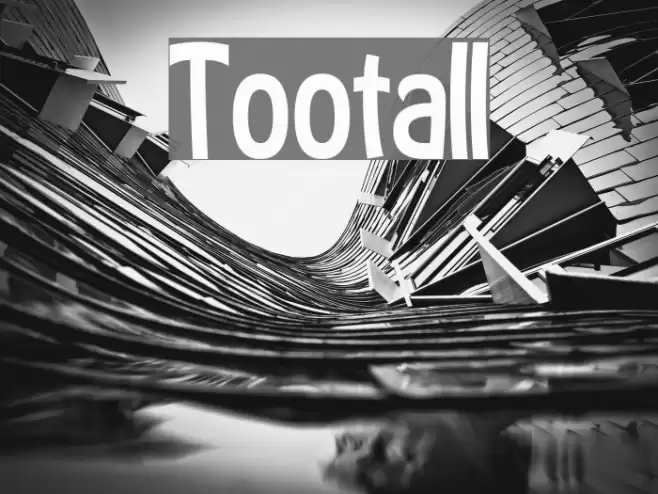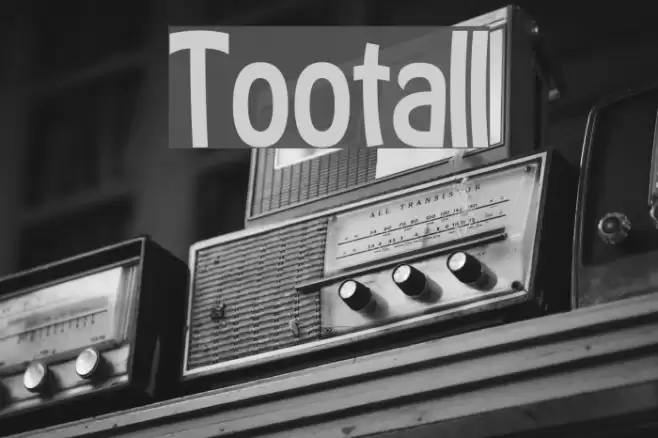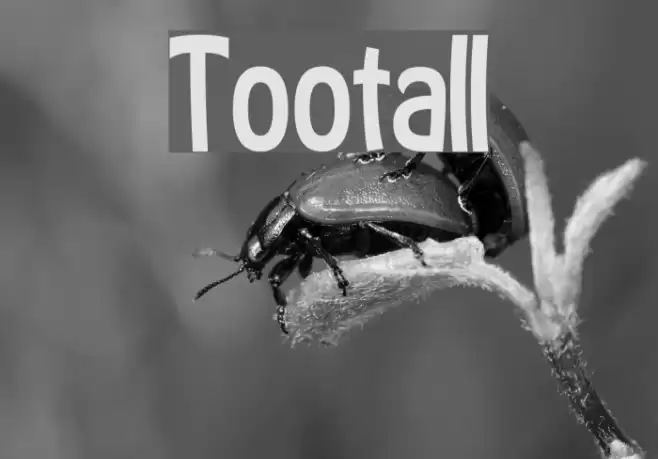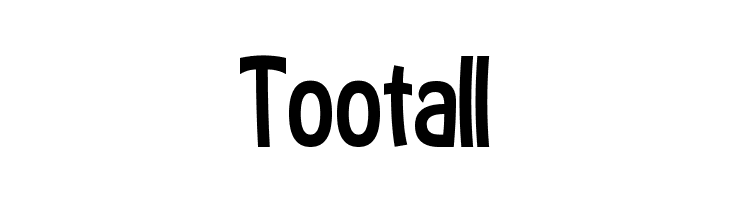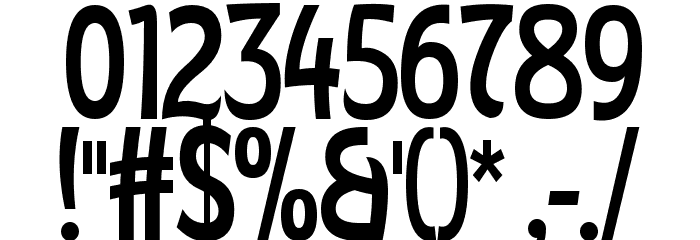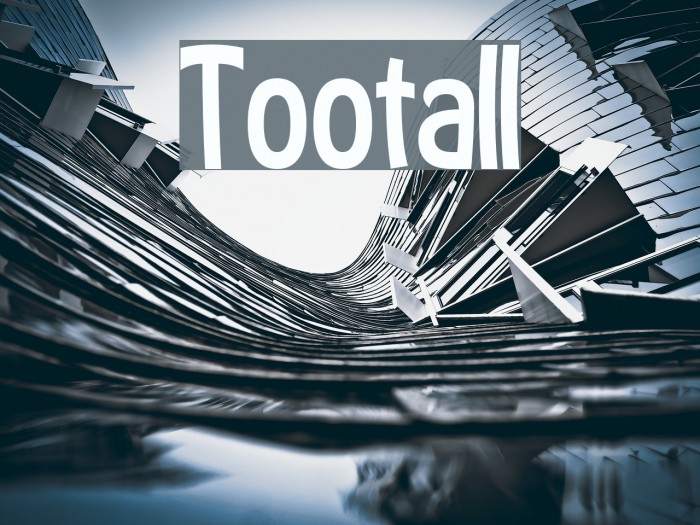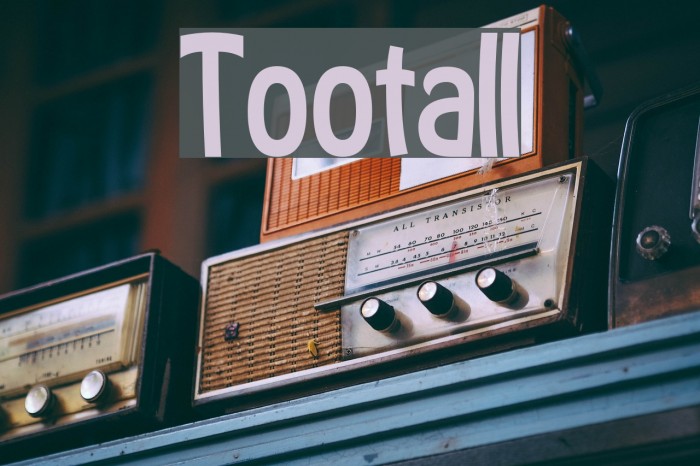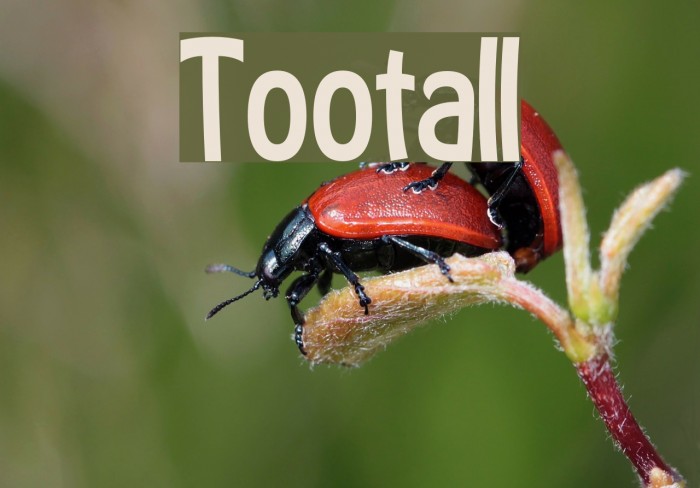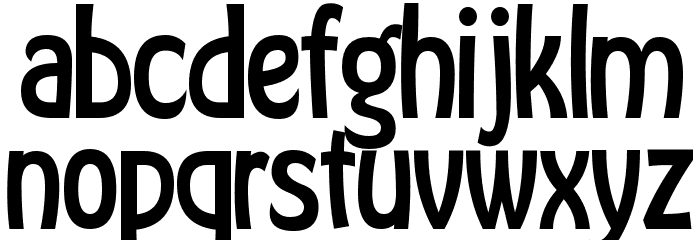
Tootall Font
Tootall Description
This font features a playful and whimsical design with tall, narrow characters that have a slightly irregular and hand-drawn appearance. The uppercase letters are bold and prominent, while the lowercase letters maintain a consistent height, adding to the quirky style. The numbers are similarly styled, ensuring a cohesive look across all characters. Special characters are included, matching the overall aesthetic. The font's unique style makes it stand out, with a friendly and approachable vibe, suitable for creative and informal projects.
A playful, tall, and narrow font with a hand-drawn feel from Uncategorized fonts.
- Proposed Projects: Ideal for children's books, playful branding, greeting cards, and creative posters.
- Overall Style: Playful